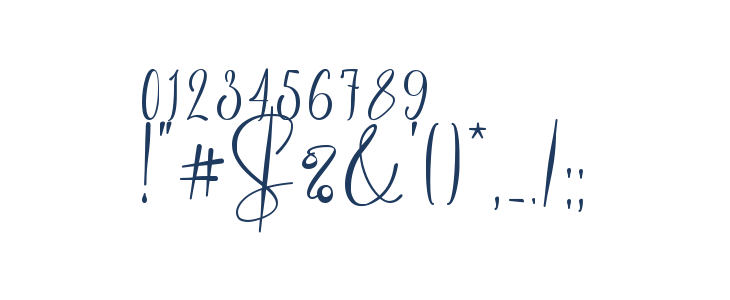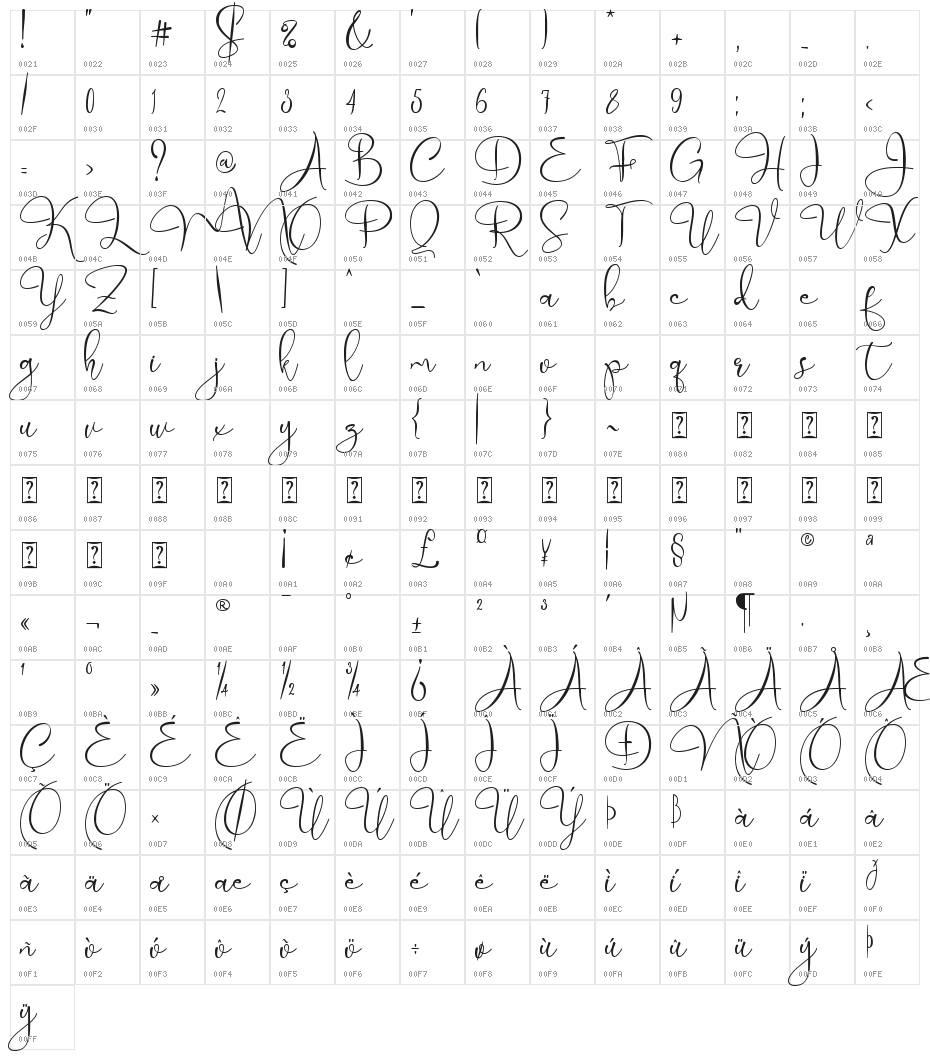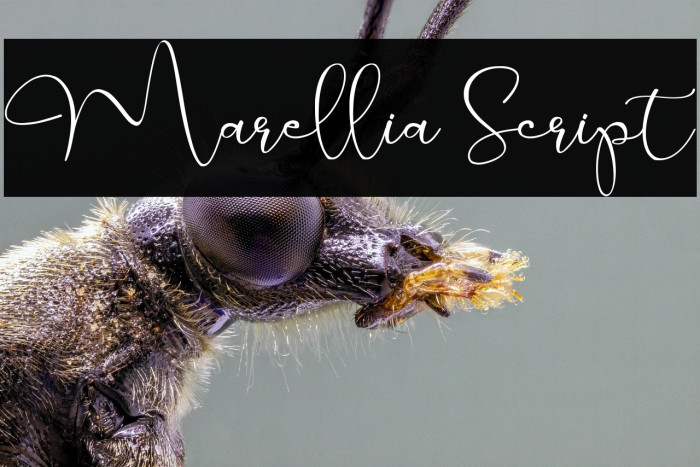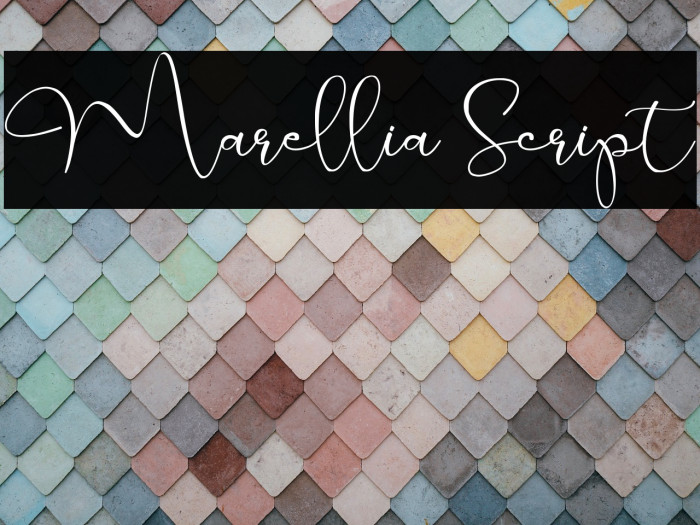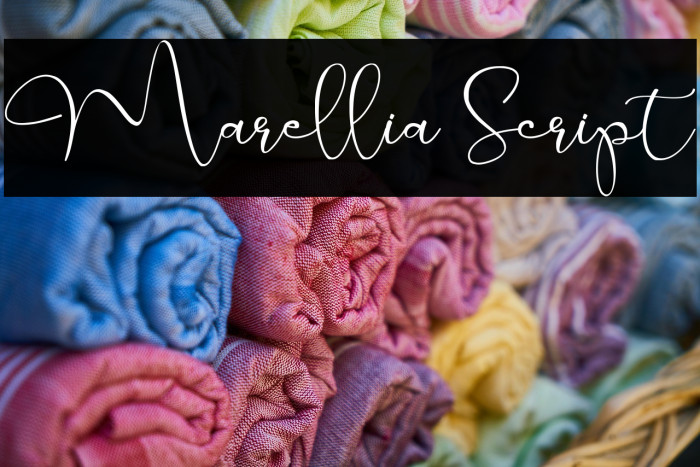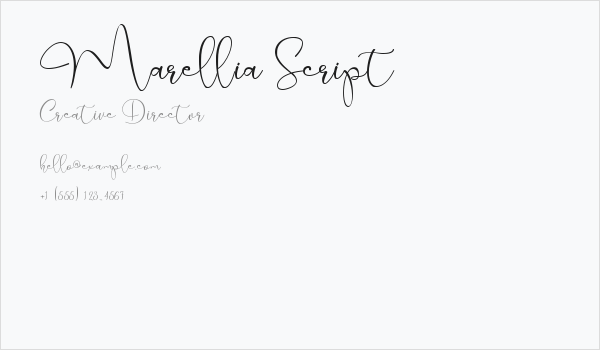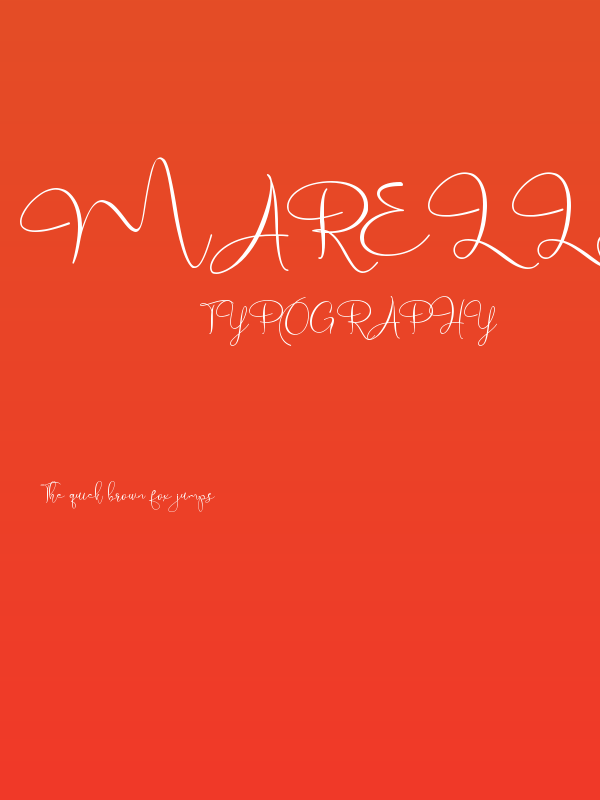
Marellia Script Font
Marellia Script Description
This elegant script font features flowing, interconnected letters that evoke a sense of sophistication and grace. The uppercase letters are characterized by their sweeping curves and loops, while the lowercase letters maintain a consistent fluidity, making them perfect for creating a seamless, handwritten appearance. The numerals are clear and stylish, complementing the overall aesthetic. Special characters are thoughtfully designed to match the font's elegant style, making it versatile for various applications. The font's delicate strokes and artistic flair make it ideal for projects that require a touch of elegance and personalization.
| Use Case | Logos, Invitations, Personal stationery |
| Proposed Projects | Ideal for wedding invitations, elegant branding, personal stationery, and artistic projects. |